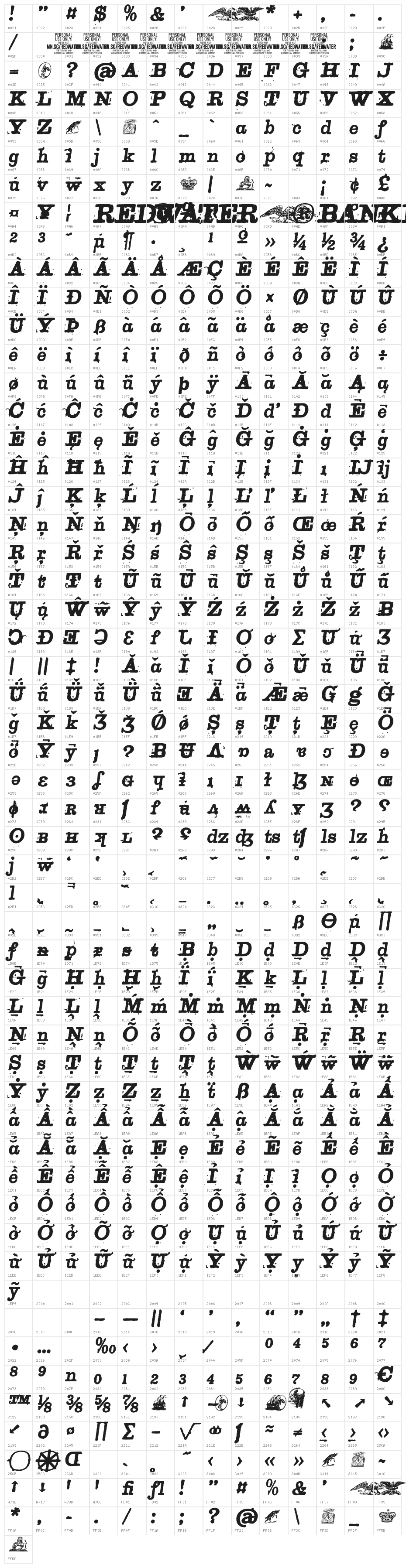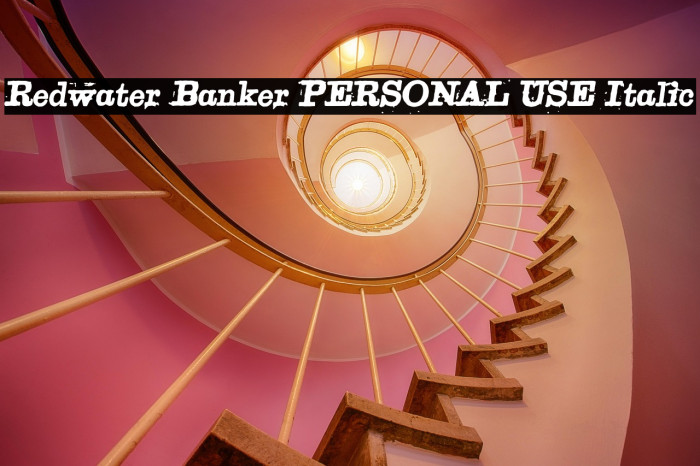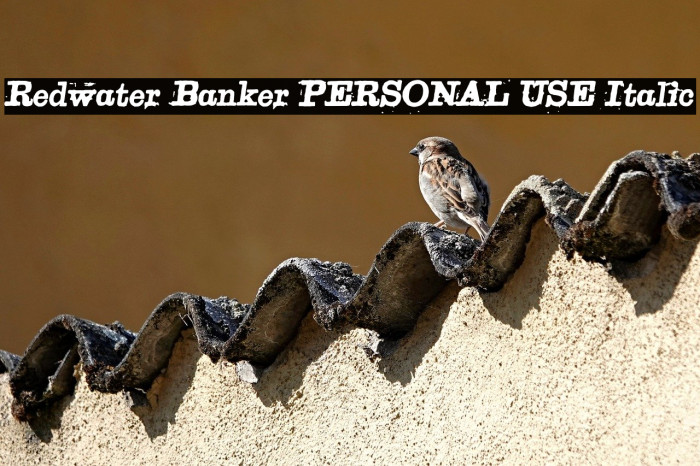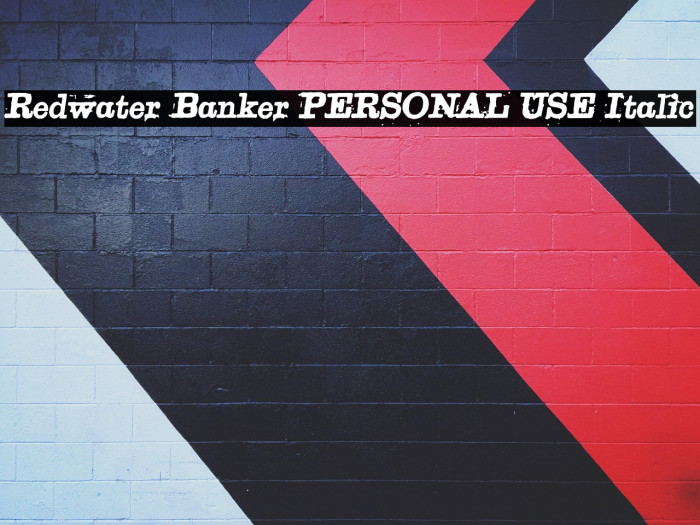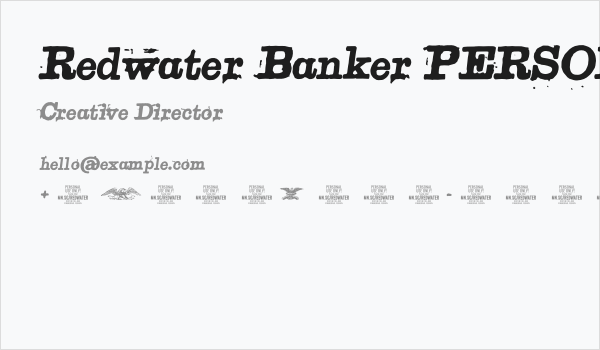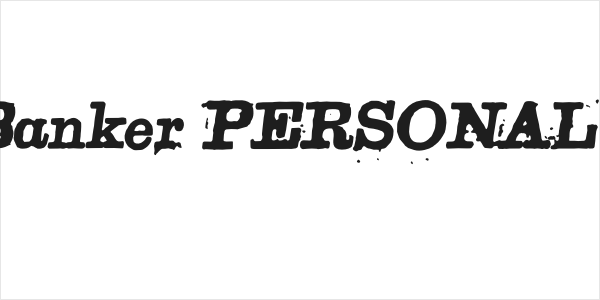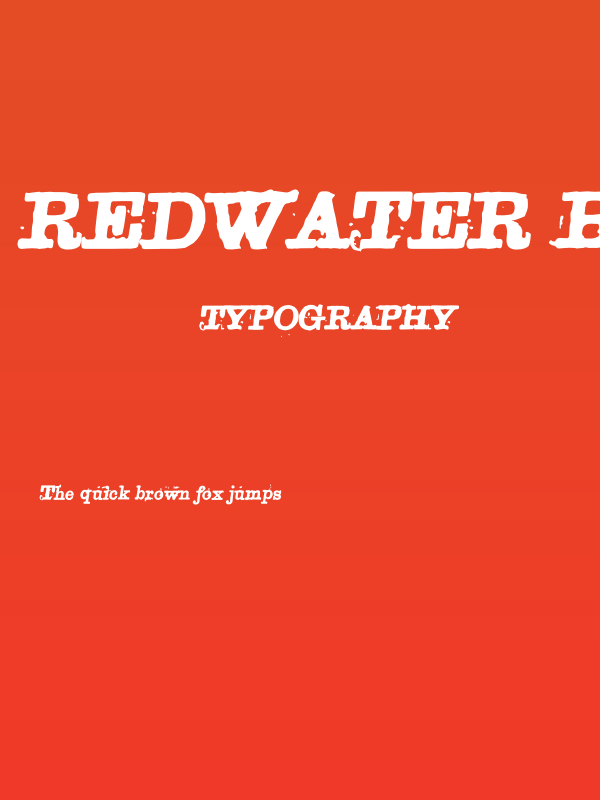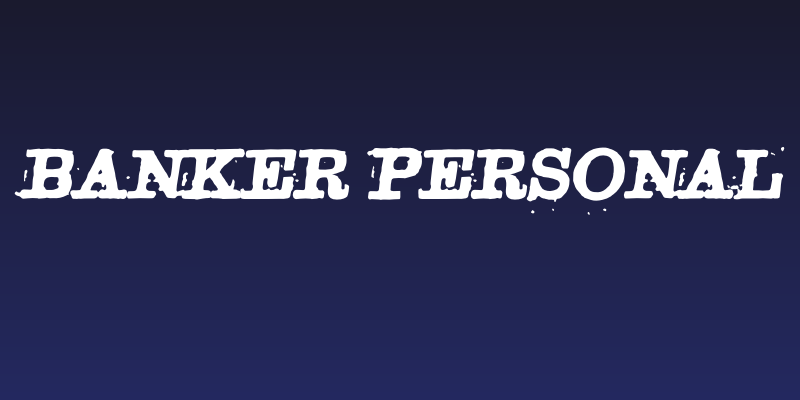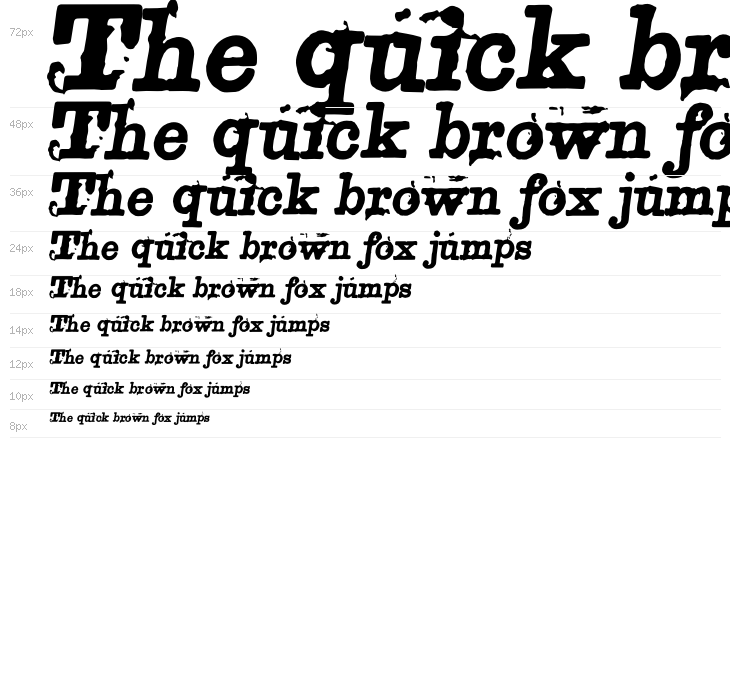
Redwater Banker PERSONAL USE Italic Font
Redwater Banker PERSONAL USE Italic Description
This font features a bold, distressed style with a vintage flair, characterized by its italicized, serif letterforms. The uppercase and lowercase letters exhibit a rugged texture, giving an impression of aged print or typewriter text. The numerals and special characters maintain this distressed aesthetic, adding to the overall cohesive look. The font's unique style is suitable for projects that require a touch of nostalgia or a handcrafted feel, making it ideal for designs that aim to evoke a sense of history or authenticity.
| Proposed Projects | Ideal for vintage-themed posters, retro branding, book covers, and any design needing a historical or rustic touch. |